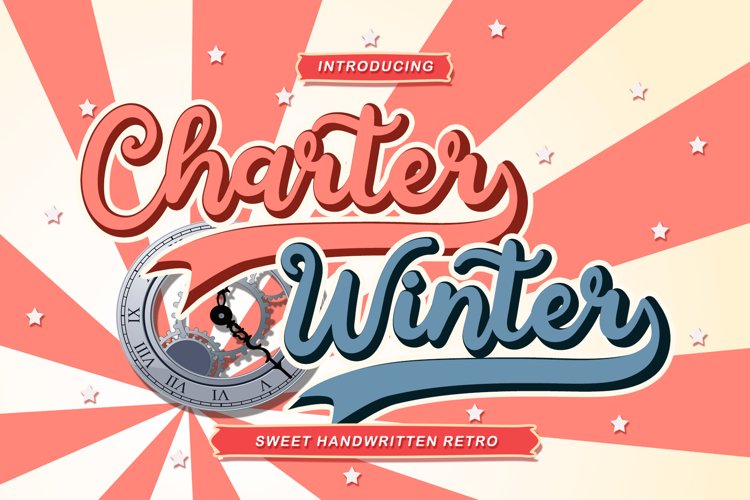
Charter Winter - Sweet Vintage Script Font
Charter Winter is sweet handwritten font with retro style, but still futuristic. It looks natural and so suitable for the awesome design.
Charter Winter is such the perfect font for any kind of your project, such as advertisements, branding, graphic design, quotes, wedding design, logo for online or offline business, photography, and others. Make your business more beautiful!